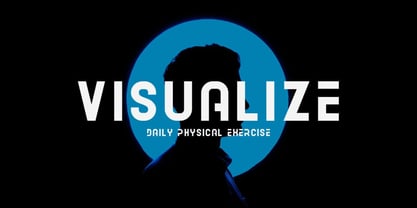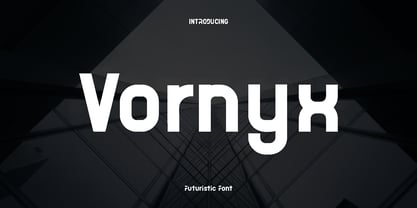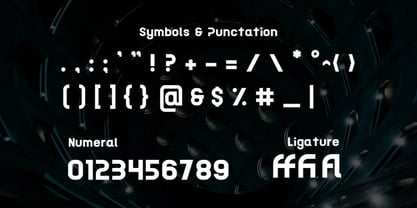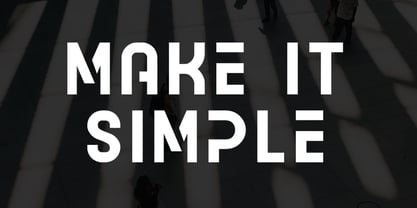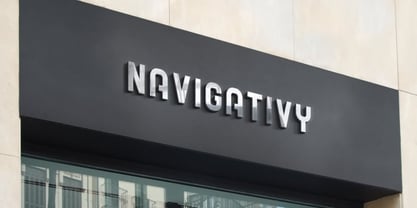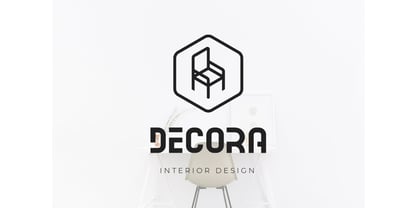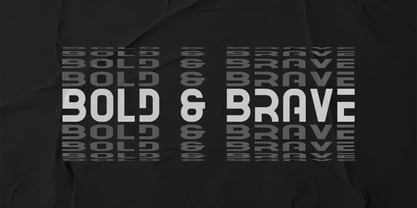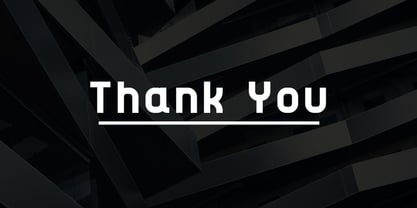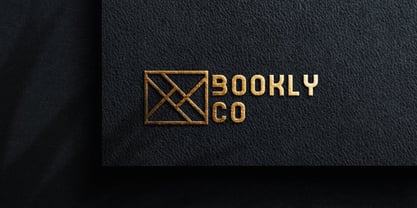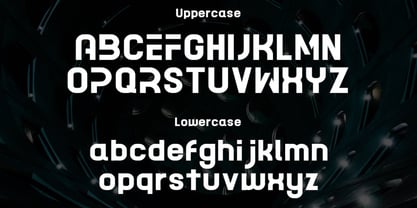
Vornyx
by Only Fonts
The Vornyx Font Family was designed by Olivia Love and published by Only Fonts. Vornyx contains 1 styles. More about this family
Vornyx is a refined futuristic typeface built to turn minimal ideas into memorable identities. Clean geometry, tight curves, and purposeful negative space create a calm high tech rhythm that feels premium without visual noise. The result is a modern voice that makes short words and initials read like precision hardware. Use Vornyx when a logo, title, or wordmark must look engineered, confident, and unmistakably contemporary. Where it shines: - Minimal brand systems: tech startups, fashion boutiques, interiors, and concept stores that need a sleek, forward look. - Display typography: product wordmarks, book covers, event titles, and hero screens that demand clarity with attitude. - Systems and signage: wayfinding, labels, and packaging where crisp forms and even spacing keep messages legible at a glance. - Digital presence: website headers, app splash screens, and taglines that pair sophistication with fast readability. Standout features: - Uppercase and lowercase designed as a cohesive display set for flexible hierarchy. - Symbols and punctuation shaped to match the geometric voice for clean UI and packaging copy. - Lining numerals that align neatly for SKUs, dates, and stats. - Useful alternates to shift tone from minimalist to experimental while staying consistent across a brand. - Smart ligatures that form compact, seamless wordmarks and smoother letter connections. - Multilingual support so the same polished character carries across regions and platforms. Choose Vornyx when minimalism meets the future: a precise, versatile display partner for logos, titles, taglines, and store brands that value clarity, restraint, and standout form.
Designers: Olivia Love
Foundry: Only Fonts